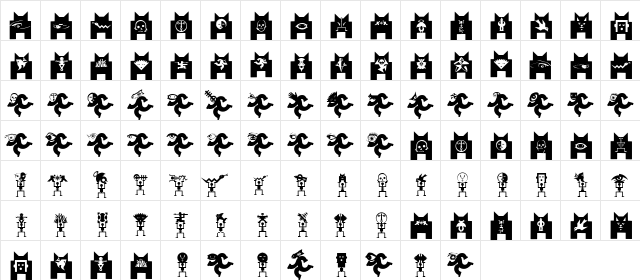
Logotrainer Regular
Design Context for Logotrainer Typeface
Logotrainer is a composed and adaptable typeface that performs quietly and consistently across a wide range of design contexts.